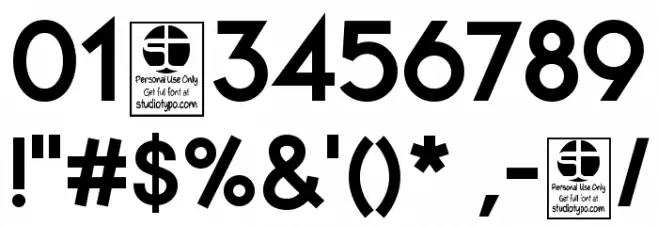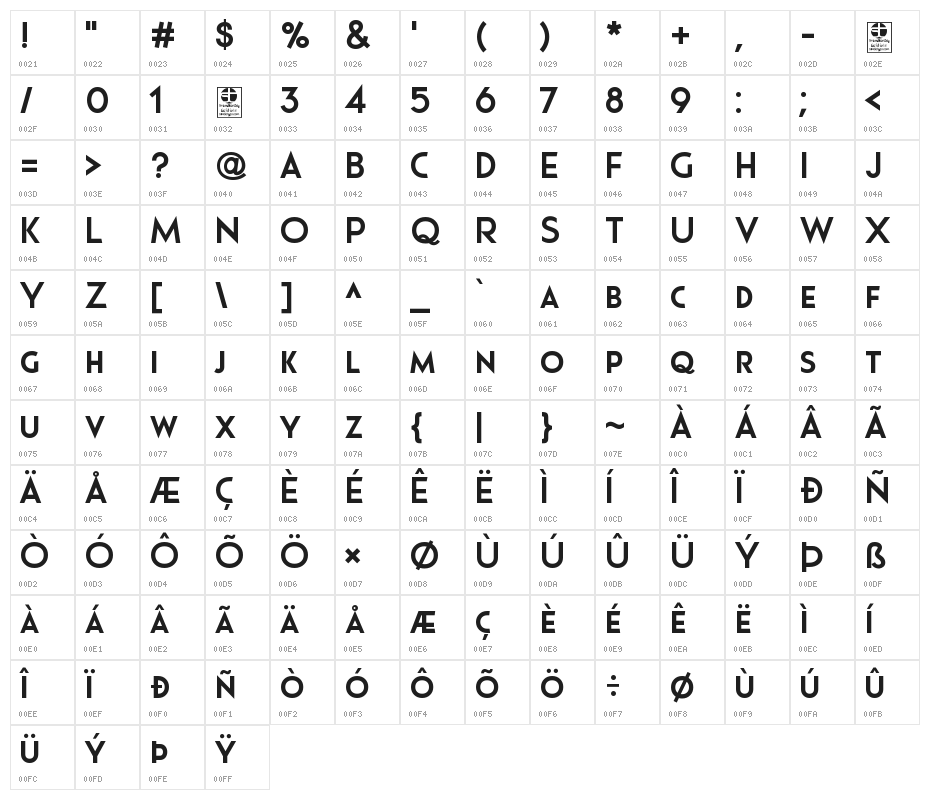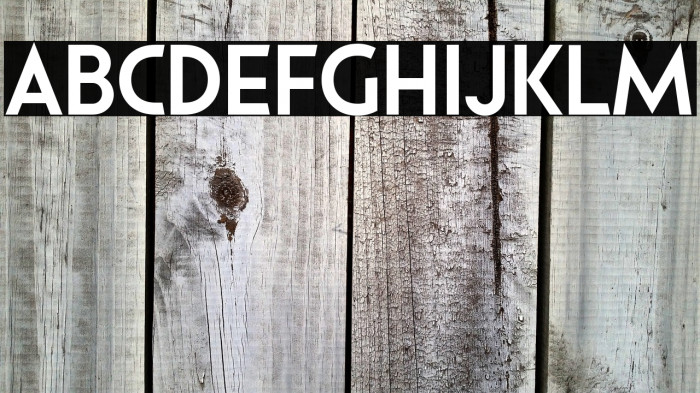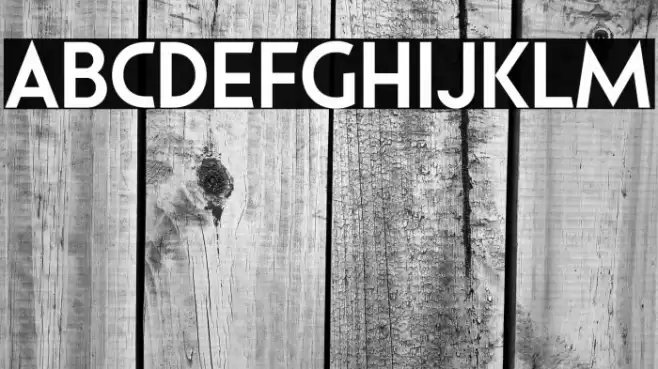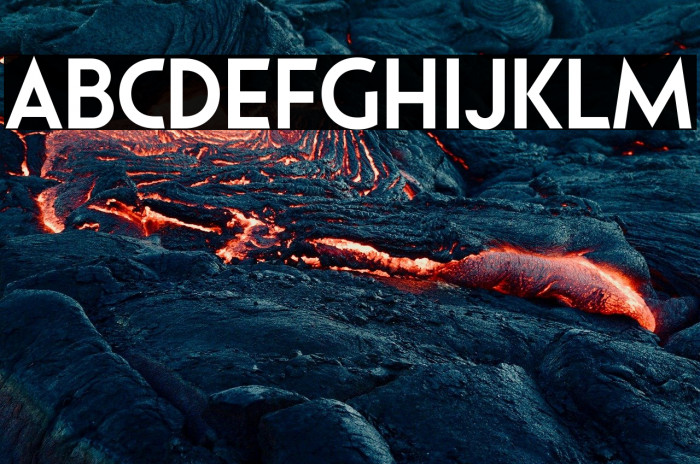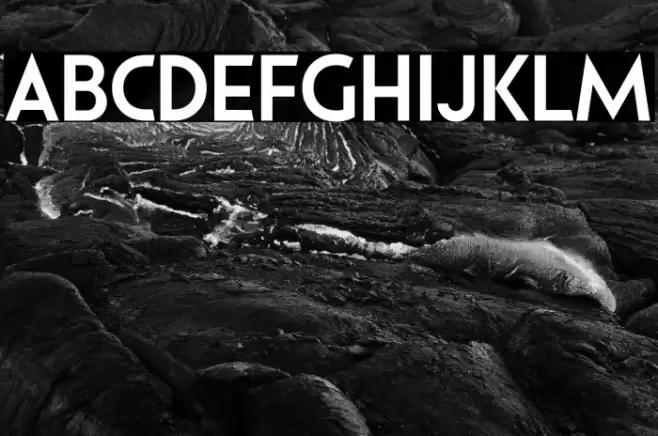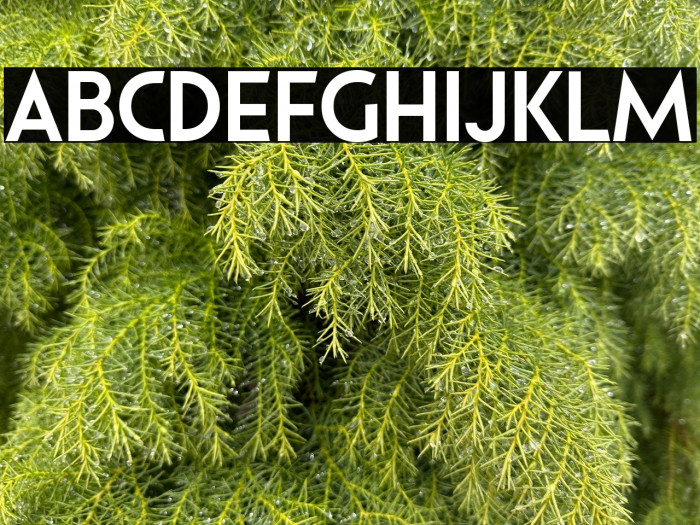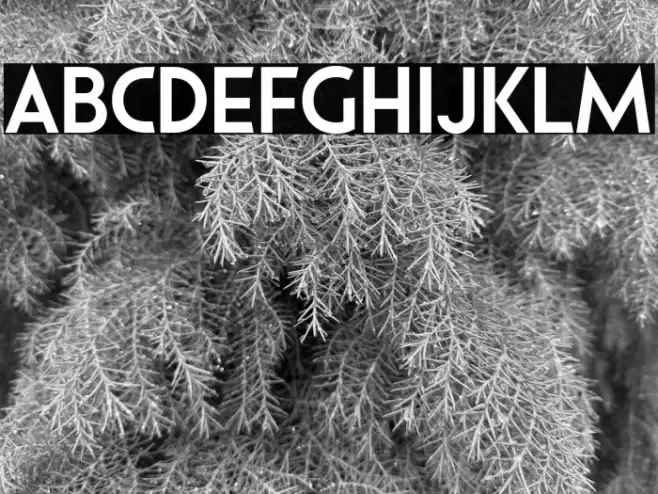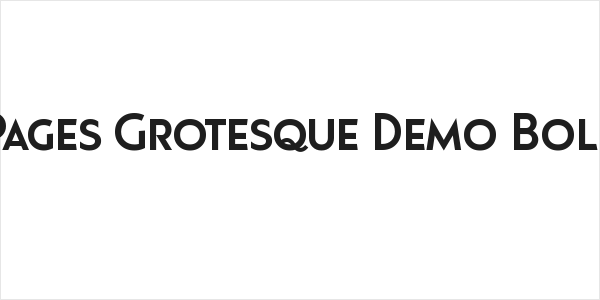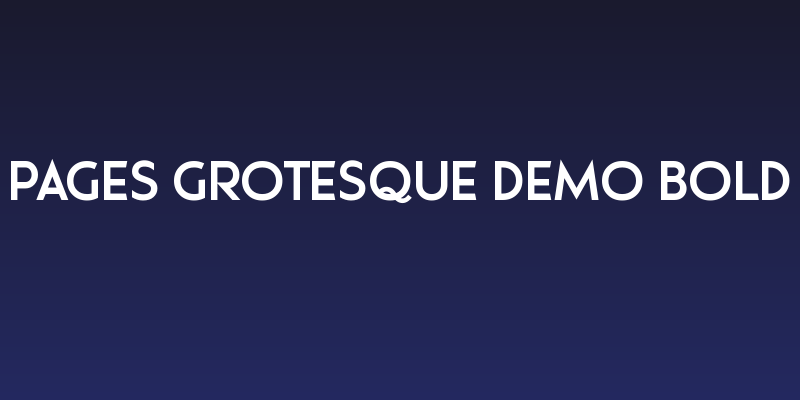
Pages Grotesque Demo Bold Font
Pages Grotesque Demo Bold Description
This font features a bold and modern sans-serif design with clean, geometric lines and a strong presence. The uppercase and lowercase letters maintain a consistent height and width, creating a uniform appearance. The numerals are distinct and easy to read, while the special characters are well-integrated, maintaining the overall aesthetic. The font's boldness makes it suitable for impactful headlines and titles, while its clarity ensures readability in various contexts.
| Proposed Projects | Ideal for branding, advertising, posters, and digital media where a strong visual impact is needed. |